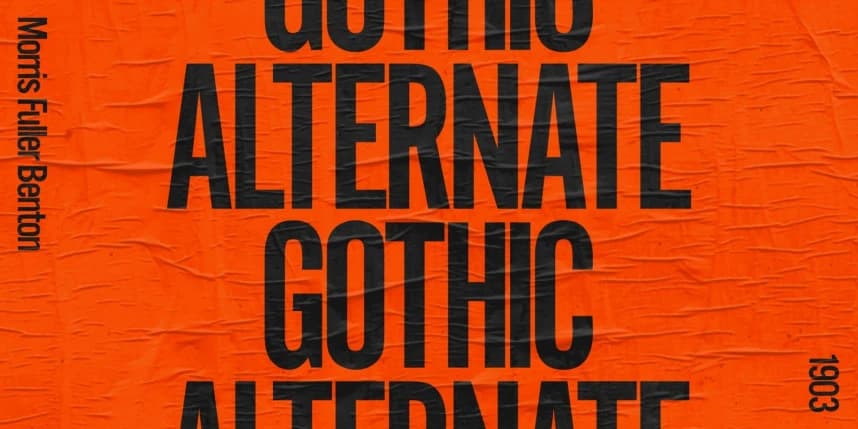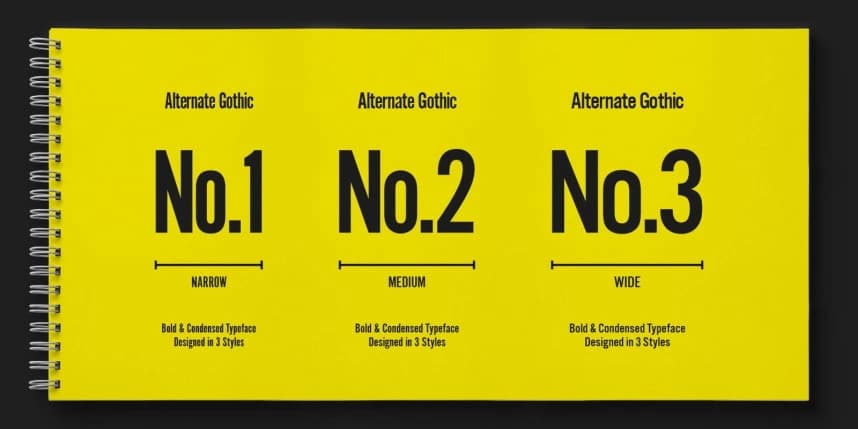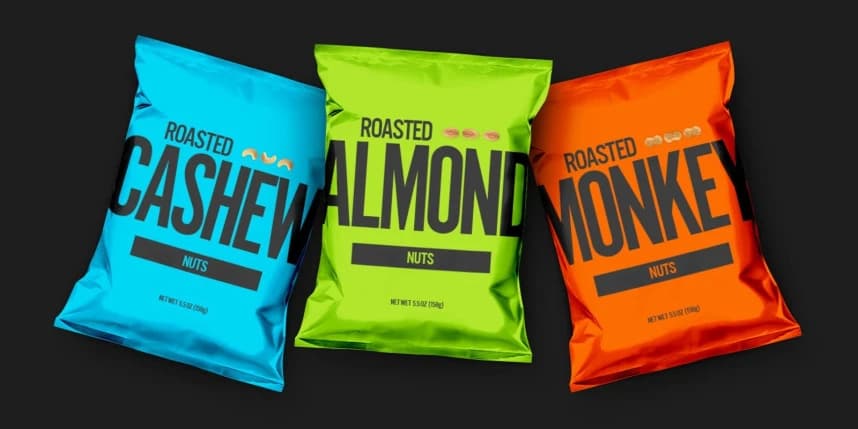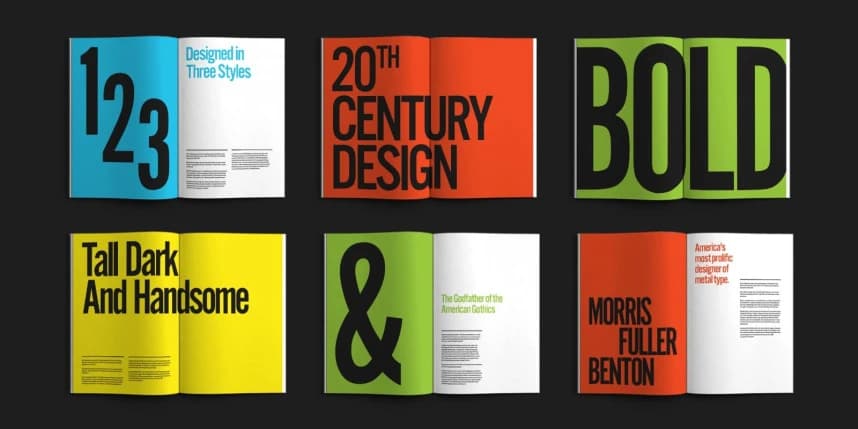
Alternate Gothic Font
Alternate Gothic Font was designed by Morris Fuller Benton for American Typefounders Company in 1903. All three weights of Alternate Gothic are bold and narrow. In fact, this face is essentially a condensed version of Benton’s other well-known sans serif types